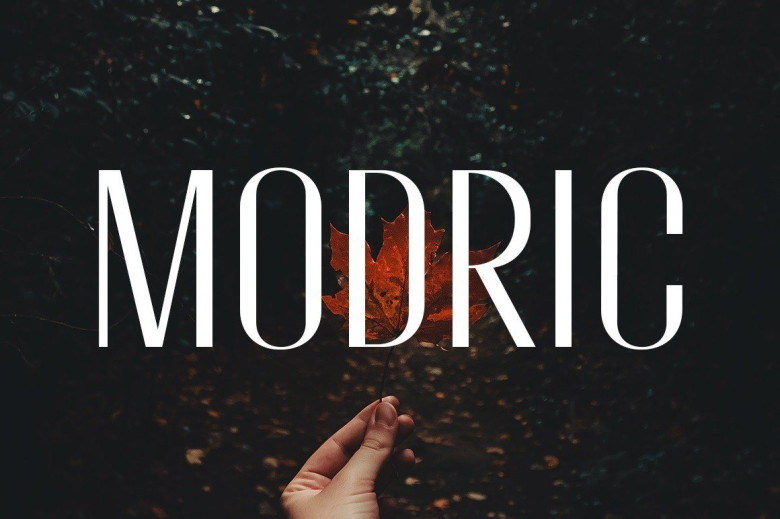
Modric Sans Serif Typeface
Modric Sans Serif Typeface – sharp & strong sans-serif typeface. The Modern design of typeface will make your design more powerful. Inspired by wide fonts, Modric Font is designed to look strictly and authentically in logos, on signboards, in fashion magazines.